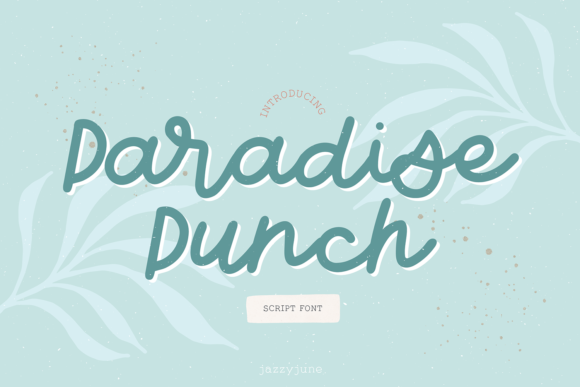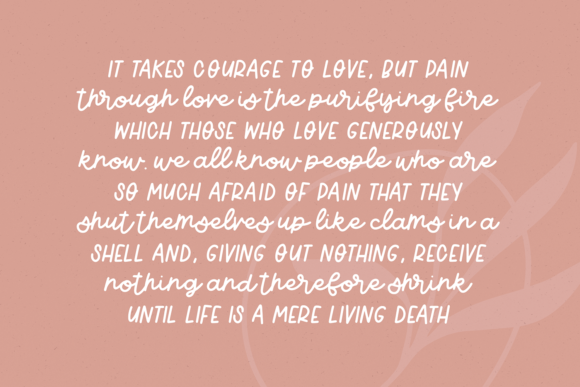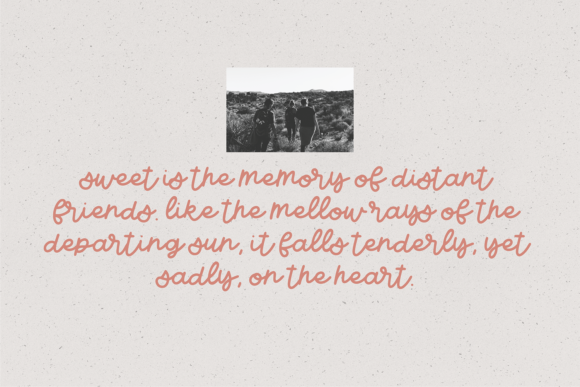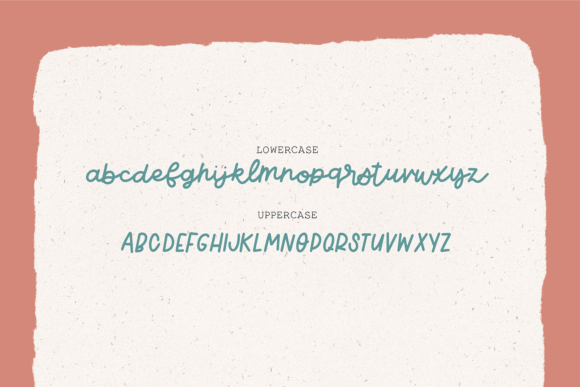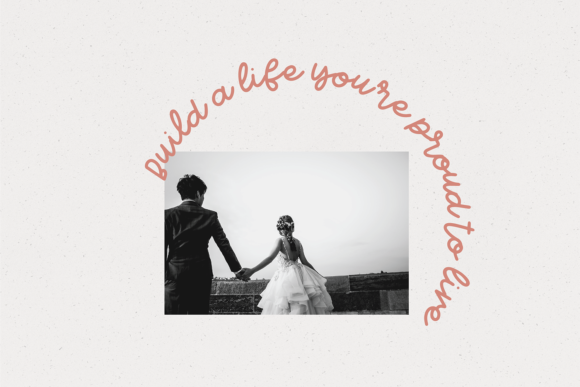
About Paradise Punch Font
Introducing “Paradise Punch” – a cute handwritten font that is sure to capture your heart. With its completely different and timeless style, this font adds a touch of charm and beauty to your designs, making them truly stand out.
Paradise Punch exudes a playful and delightful vibe with its handcrafted letterforms and whimsical charm. It’s the perfect choice when you want to infuse your designs with a sense of innocence and cuteness. Whether you’re creating greeting cards, invitations, branding materials, or any other design project, Paradise Punch will bring a smile to your face.
This font’s completely different and timeless style sets it apart from the crowd, making it a versatile option for various design themes and aesthetics. Its uniqueness adds a touch of originality to your work and allows you to create beautiful designs that captivate your audience.
With Paradise Punch, you have the opportunity to let your creativity soar. Its handwritten appearance creates a warm and personal connection with your viewers, making them feel special and engaged with your designs.
Fall in love with the irresistible charm of Paradise Punch and let it be the centerpiece of your beautiful designs. Its cute and timeless style is perfect for adding a touch of joy and playfulness to any project.
Embrace the cuteness of Paradise Punch and create designs that spread happiness and beauty to the world!